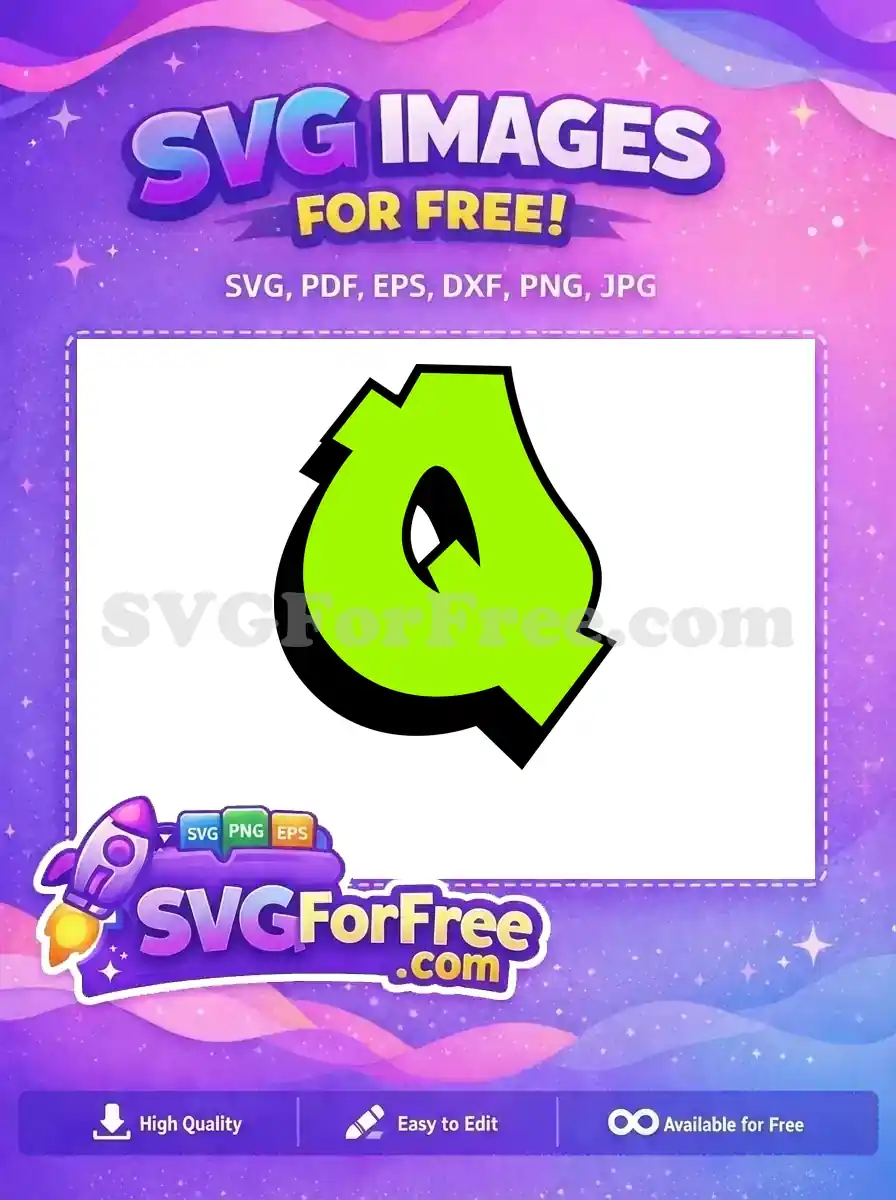
Free Graffiti Font Green Letter Q Free Bold Style Free SVG – Instant Download
This is a free downloadable graphic of a graffiti-style letter ‘Q’ in lime green with a black 3D shadow.
Free Graffiti Font Green Letter Q Free Bold Style Free SVG